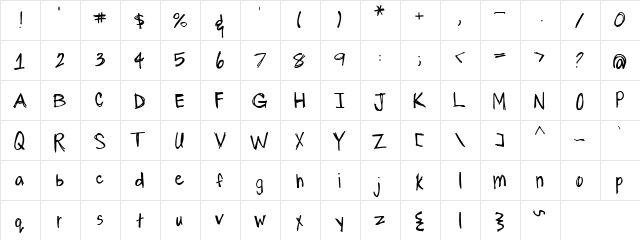
CK Study Hall Regular
Design Context for CK Study Hall Typeface
CK Study Hall is a composed and adaptable typeface that performs quietly and consistently across a wide range of design contexts.
Pro Tip: Pair CK Study Hall with a font of contrasting weight or personality to build a more expressive typographic hierarchy.